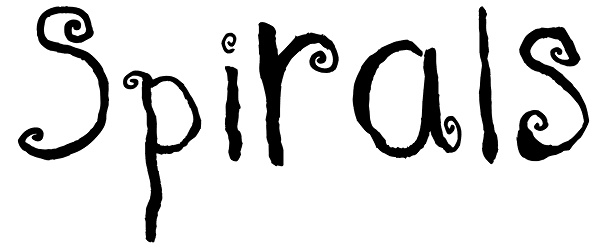
Spirals
Spirals is a doodle-style font with lots of - you guessed it - spirals! This alphabet looks great printed out big or small. Use this alphabet whenever a playful approach to typography is needed.
Spirals Font